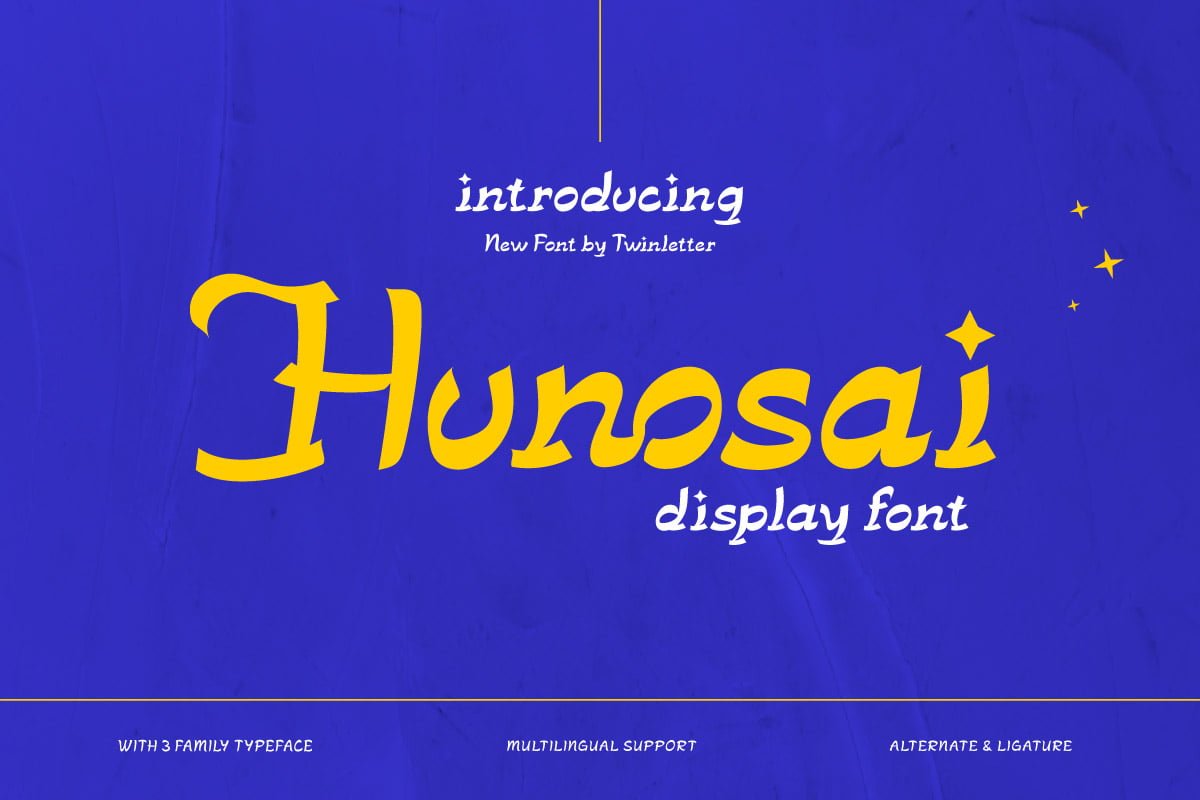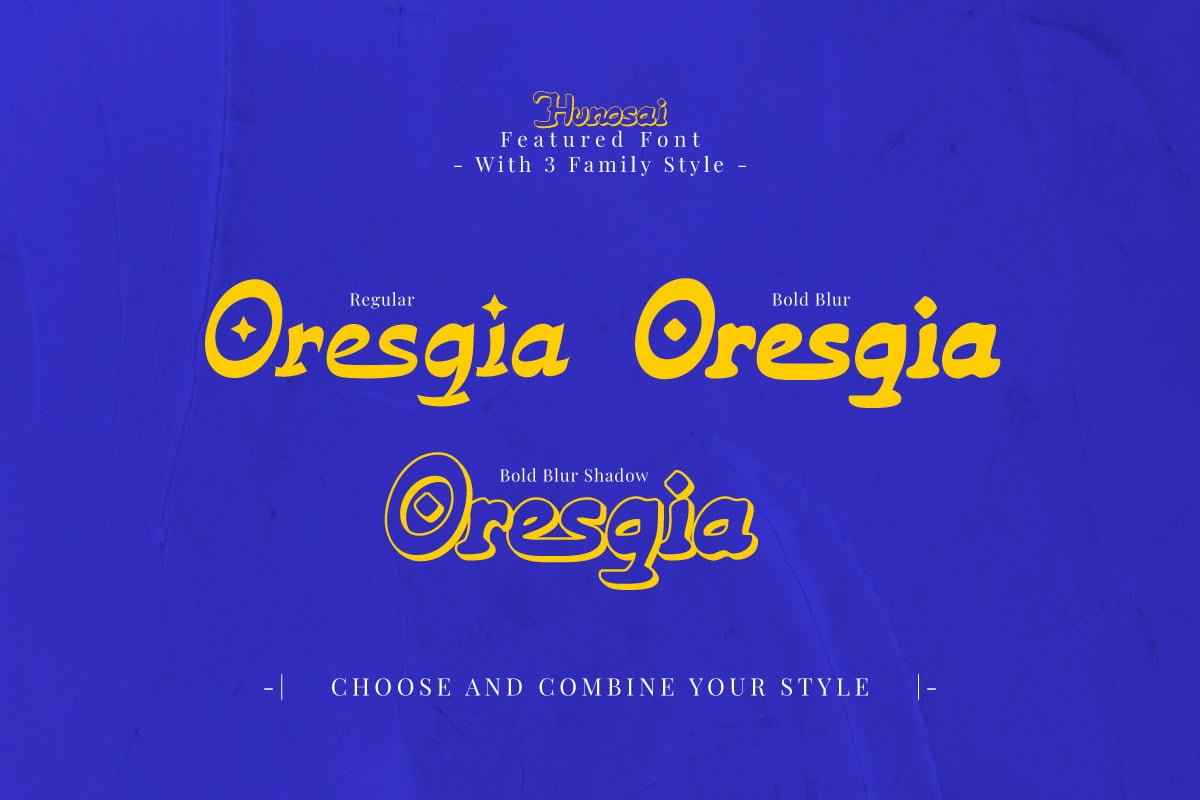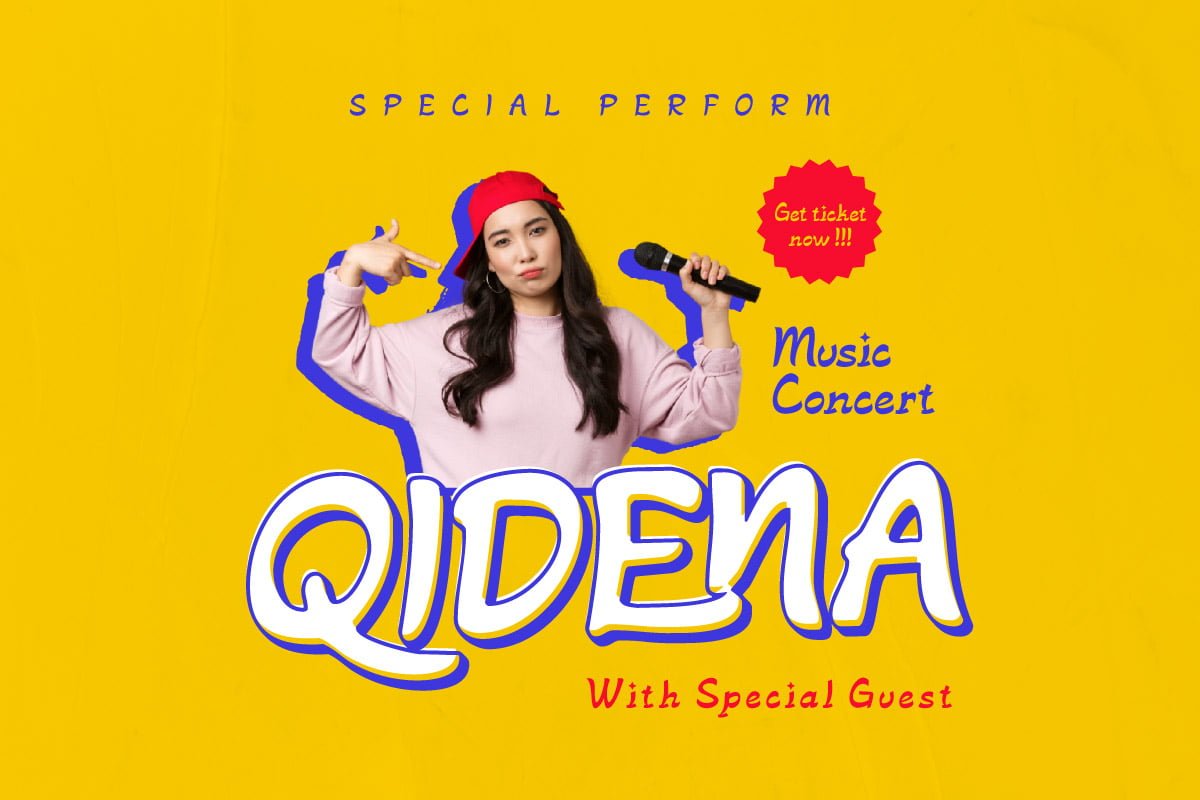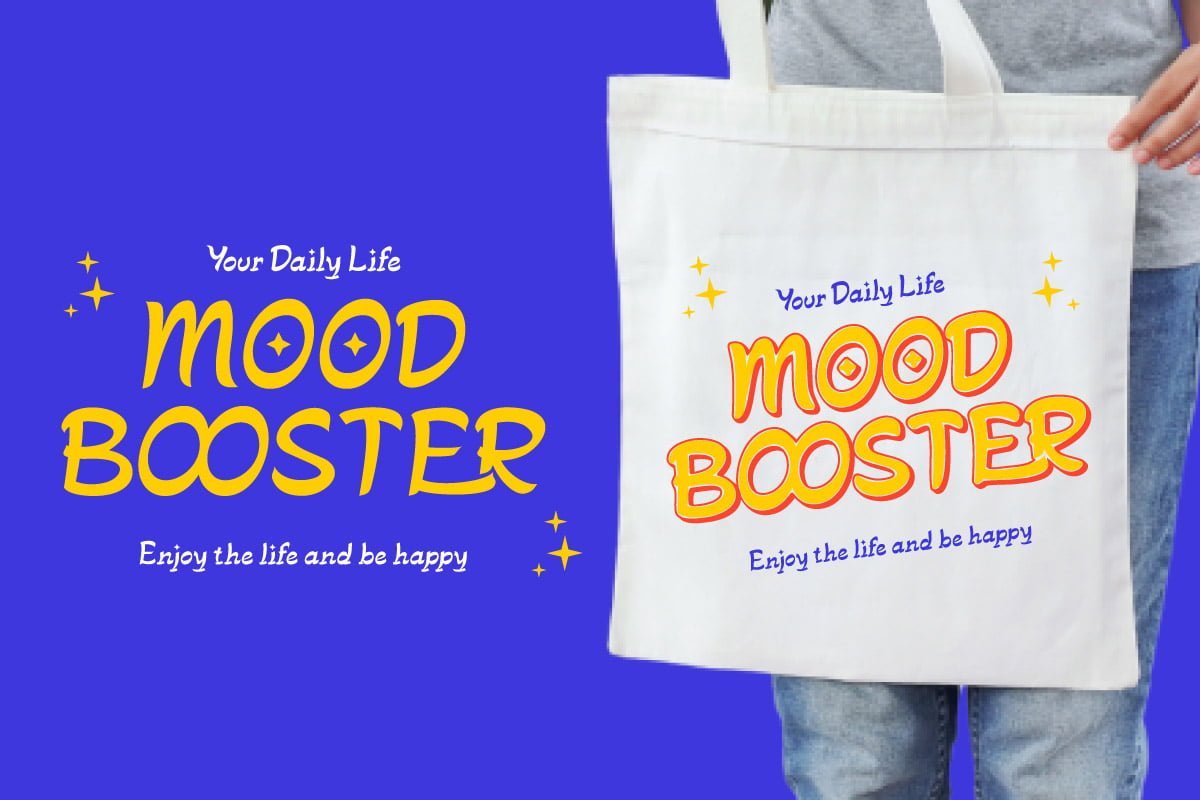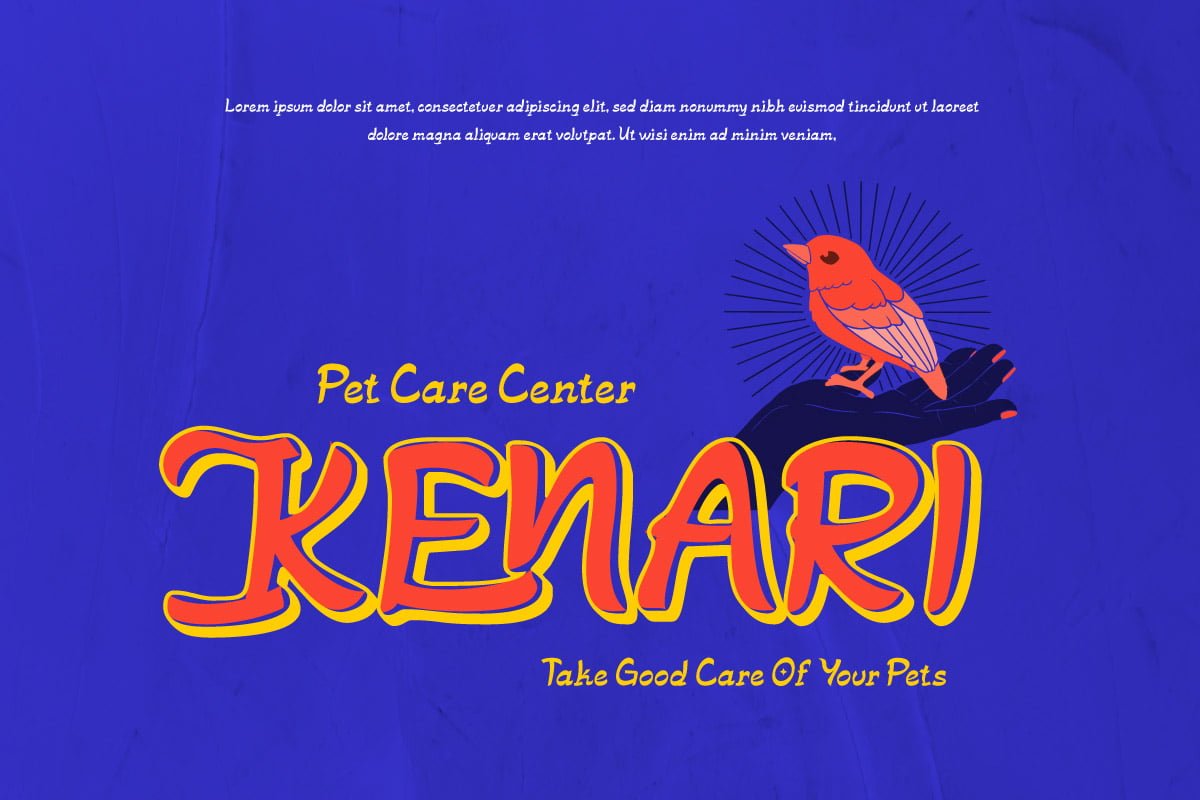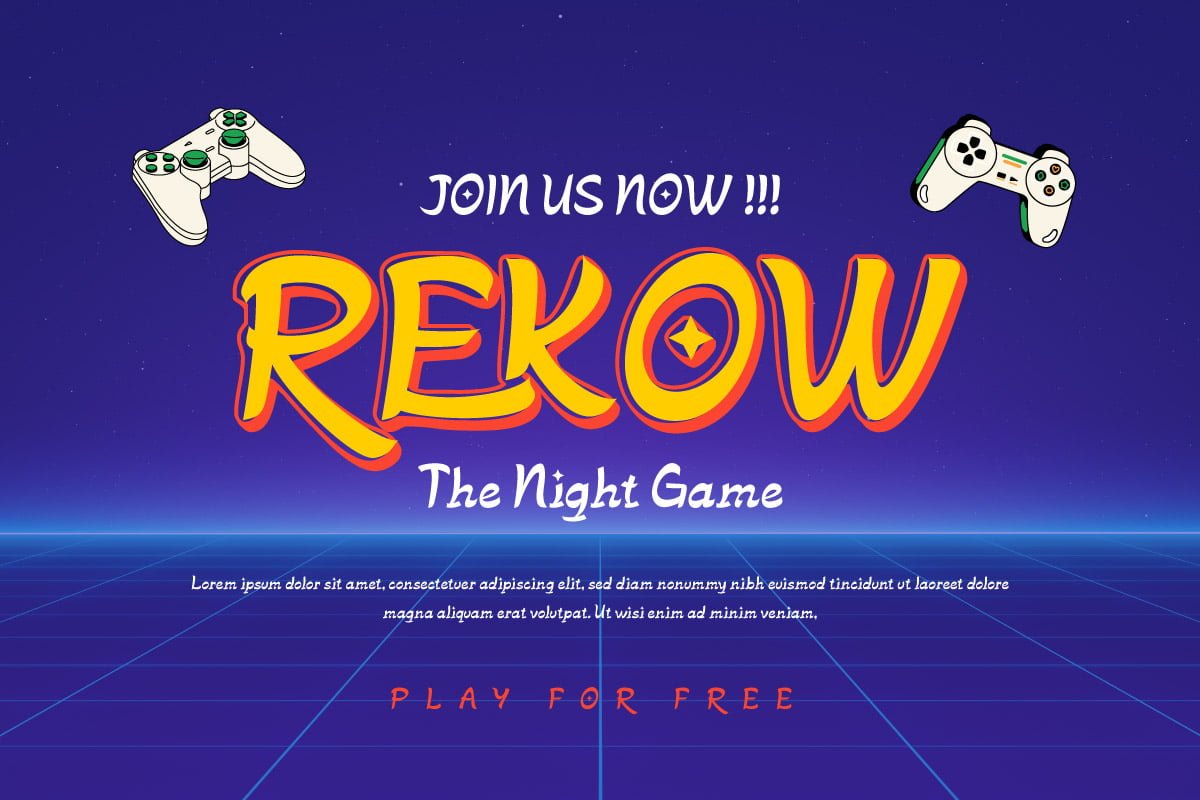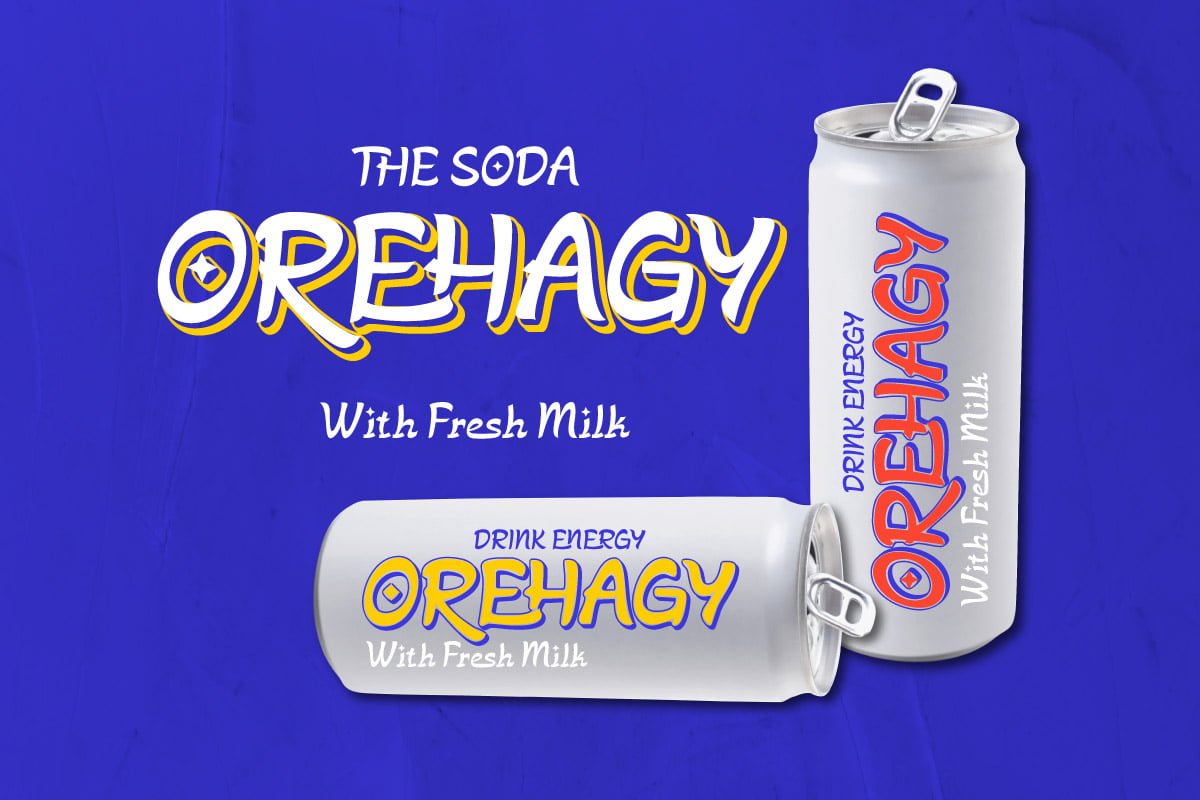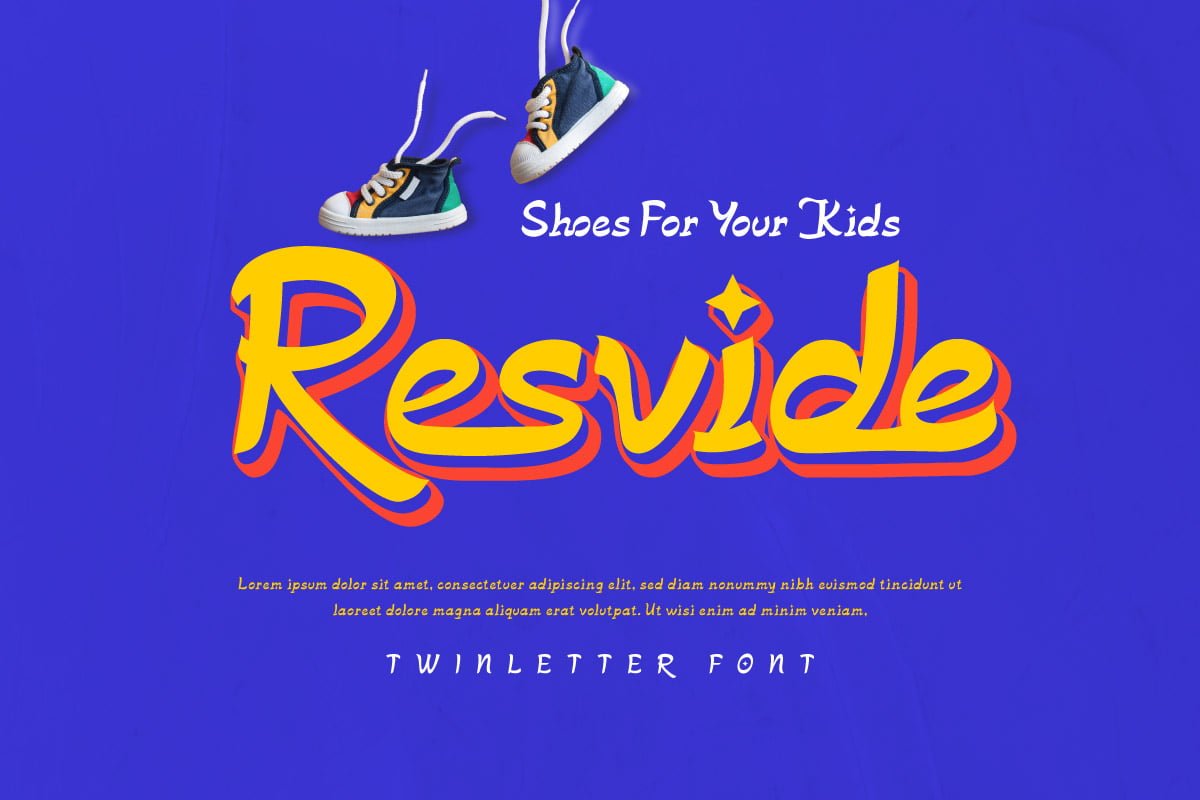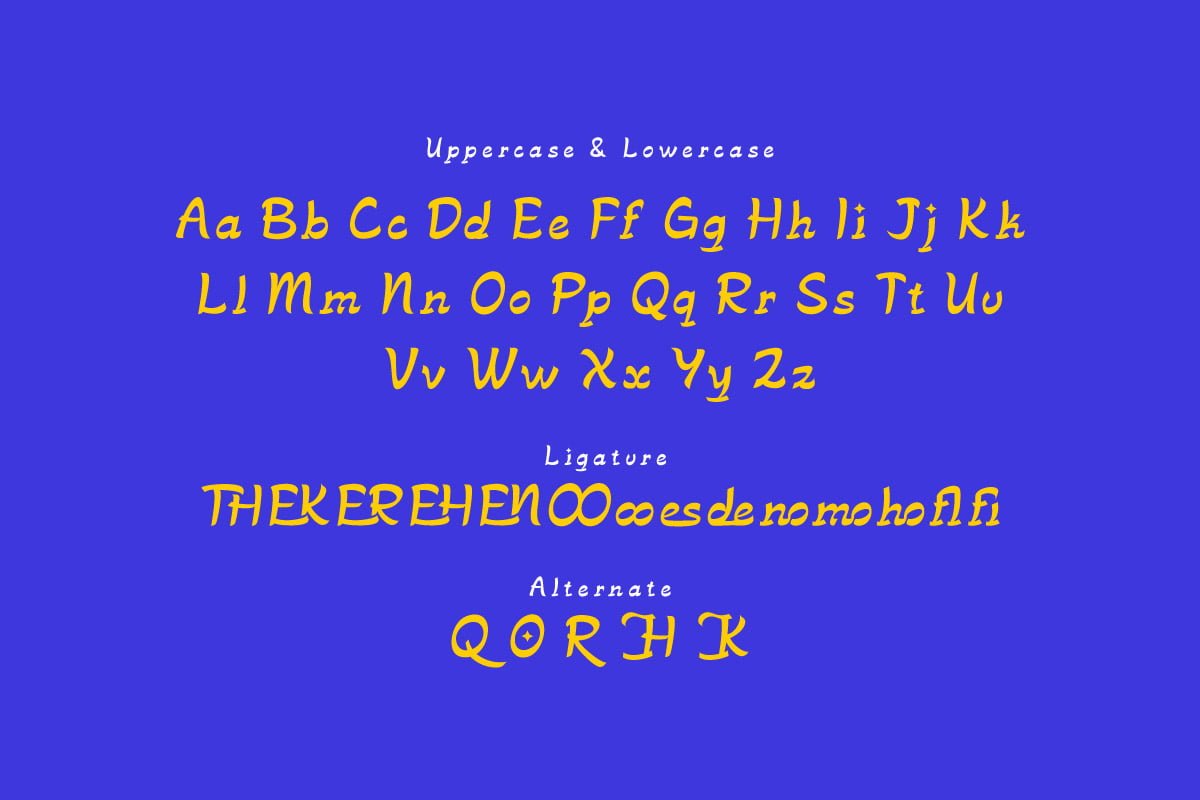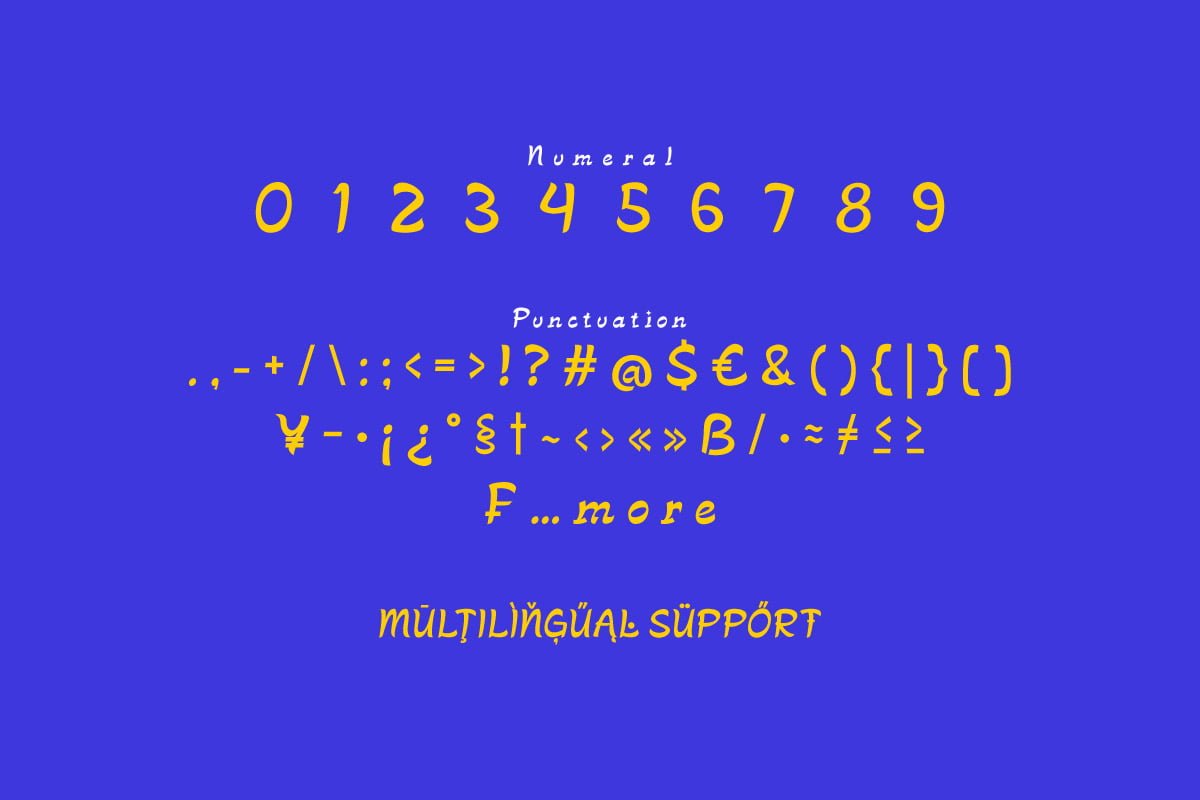
Hunosai – Display Font
Bold-Blur
Bold-Blur-Shadow
With a strong character and unique design, Hunosai is a display font that brings boldness and elegance to your design projects. With pleasing curves and balanced proportions, Hunosai is suitable for titles, headings, or other design elements that require a striking and attractive appearance.
Hunosai emphasizes the ability to provide a professional, pleasant, and exclusive impression. With each letter’s clarity and elegance, this font brings luxury and visual appeal to your design projects.
Hunosai’s advantage lies in its typographic clarity and striking display elements. Its fun and modern design creates a rugged impression while maintaining elegance.
With Hunosai, your design project will be elevated to a higher level. Let each letter be representative of the elegance you desire in your design, creating an unforgettable impression.